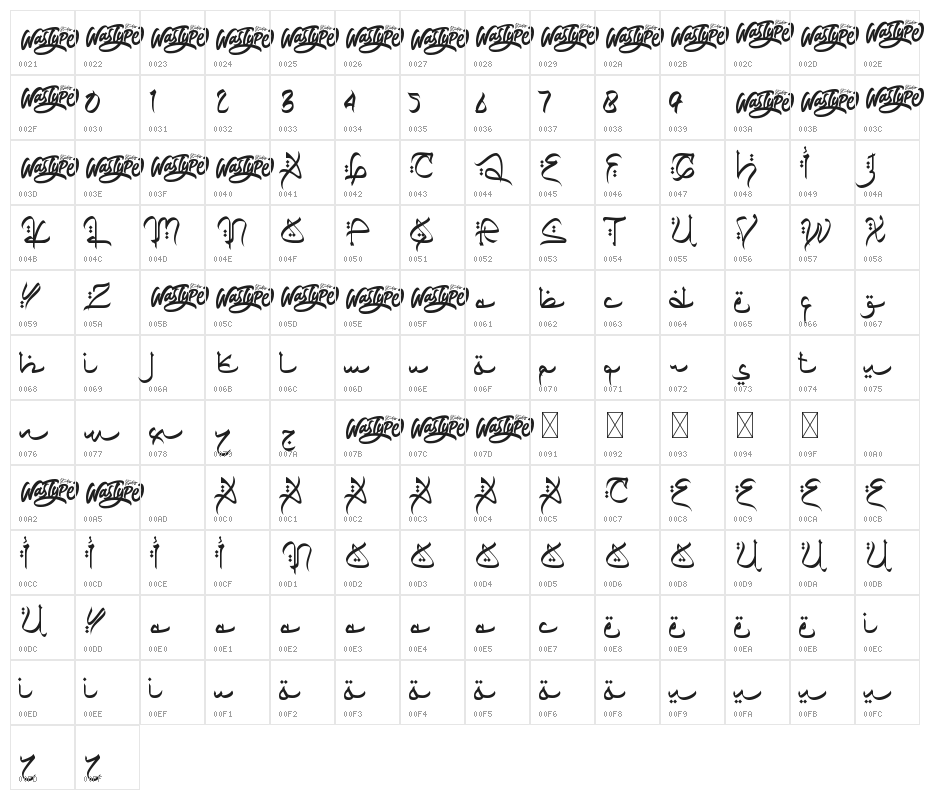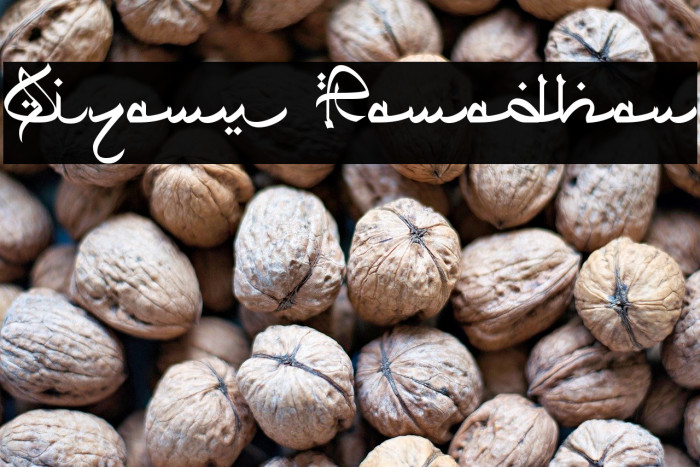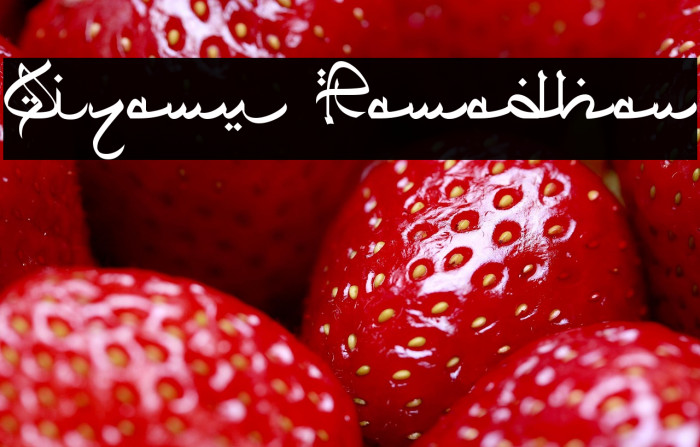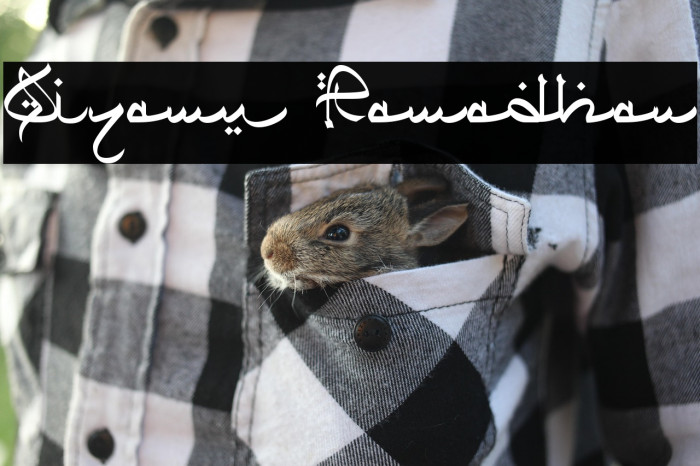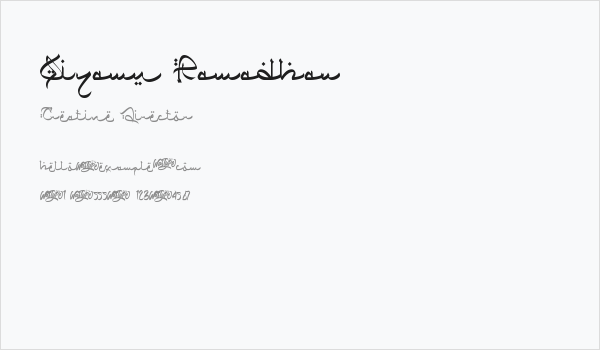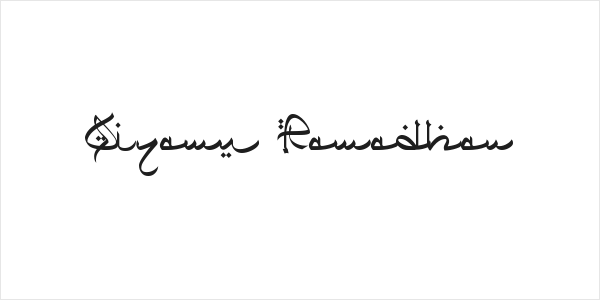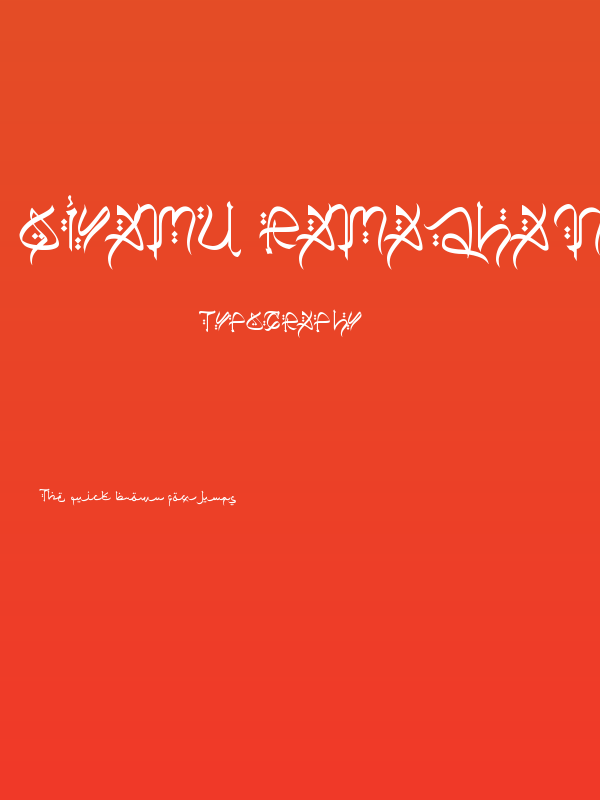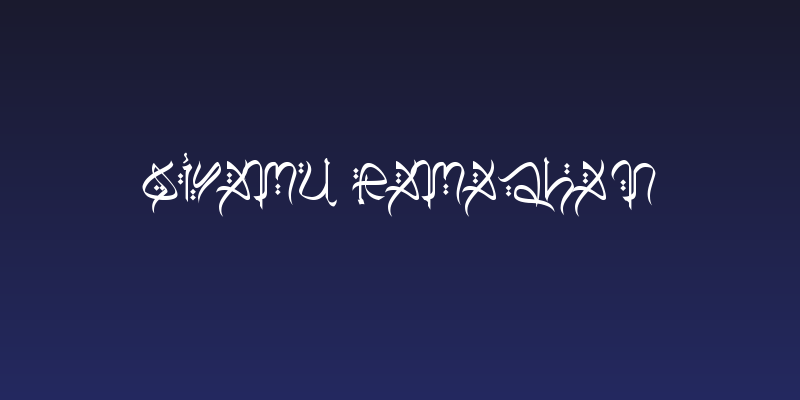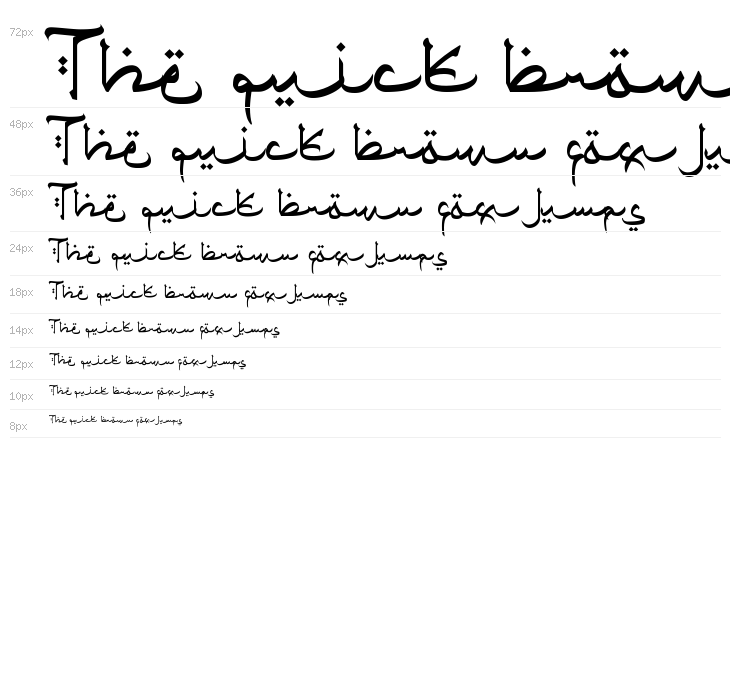
Qiyamu Ramadhan Font
Qiyamu Ramadhan Description
This font exhibits a unique blend of traditional and modern elements, characterized by its intricate and decorative style. The uppercase letters feature elaborate flourishes and ornamental details, giving them a distinct and artistic appearance. The lowercase letters maintain a similar decorative style, with smooth curves and elegant lines. The numerals are bold and stylized, matching the overall aesthetic of the font. Special characters are designed with the same attention to detail, ensuring consistency throughout. This font is ideal for projects that require a touch of elegance and sophistication.